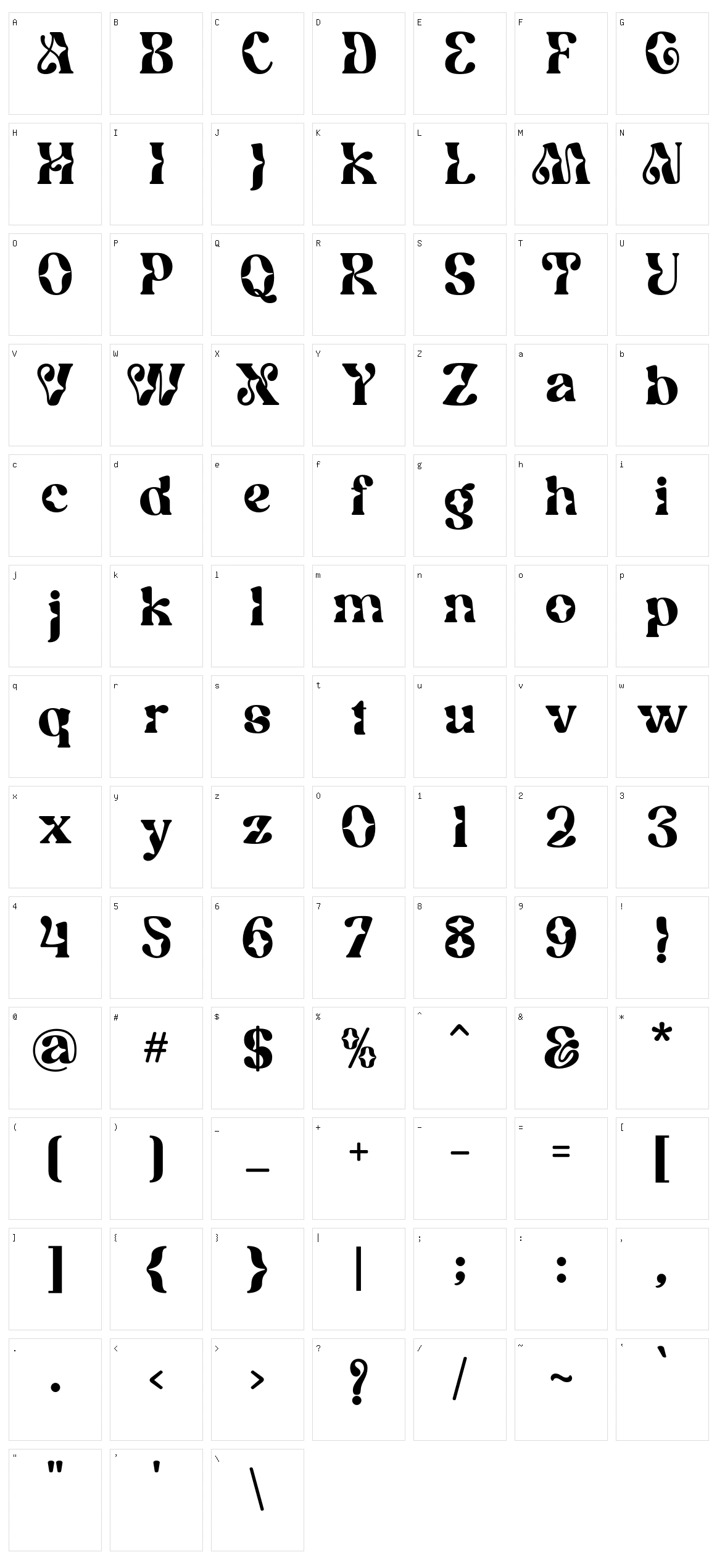
The free font Mostera is carefully designed by Mega Type, showcasing a thoughtful balance of creativity and usability and falls under the Groovy font style. When you download the ZIP file, it contains only 90.69 KB of font files, making it lightweight and quick to download. Please review the license details below to understand permitted usage and distribution rights. If license information is not available, we recommend using this font for personal projects only or contacting the author directly for commercial usage permissions.